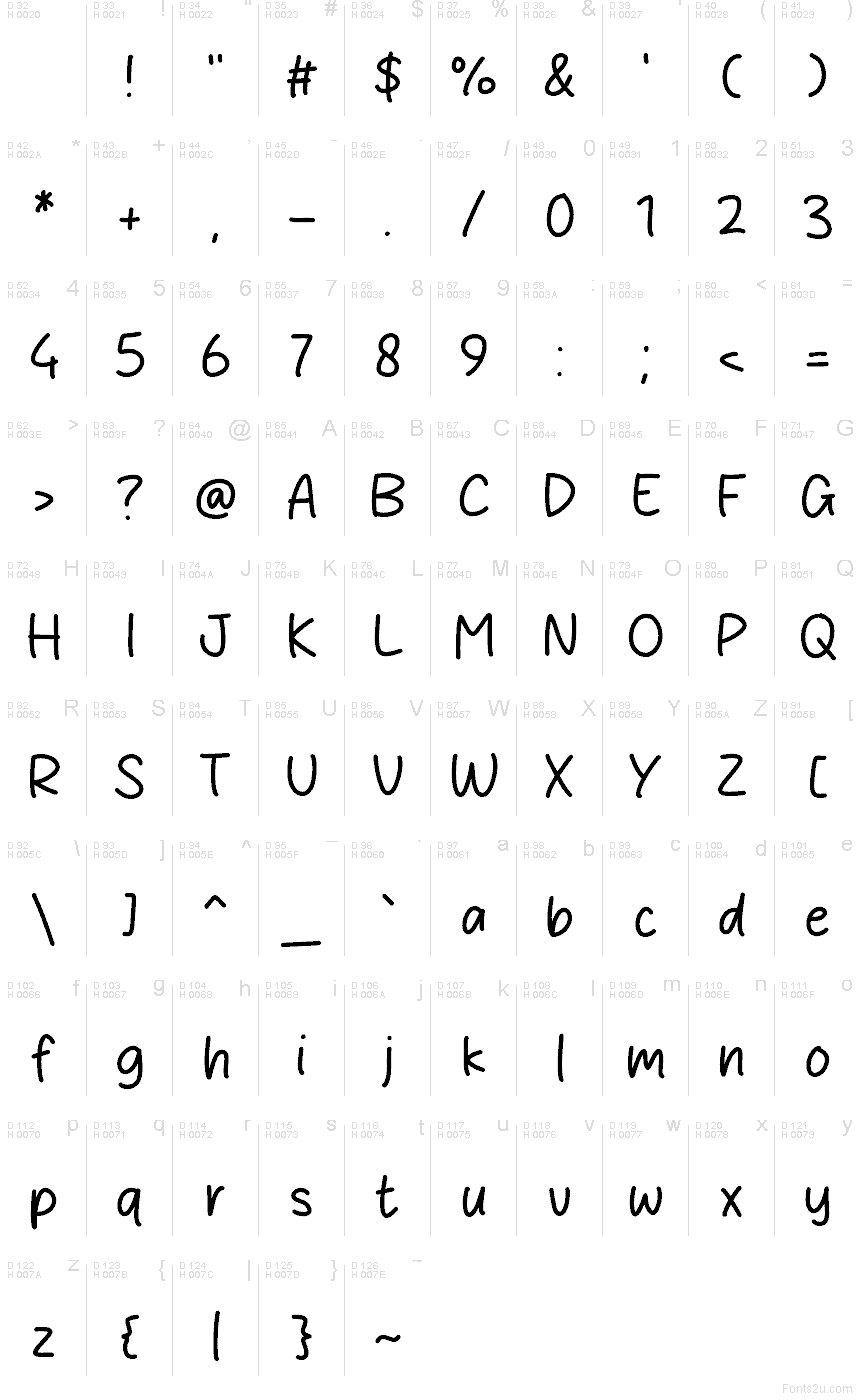
Fuji Apple from MJType is a free handwritten font with narrow, tall, loosely spaced letters, broad curves, and an easy marker-drawn quality. Rounded strokes and uneven heights give the writing a relaxed bounce.
A cafe menu is an especially convincing use, since the open forms suit friendly food and drink branding as well as casual packaging. On children's posters and event graphics, the lettering can become part of a doodled border or illustrated sign instead of acting as neutral text.